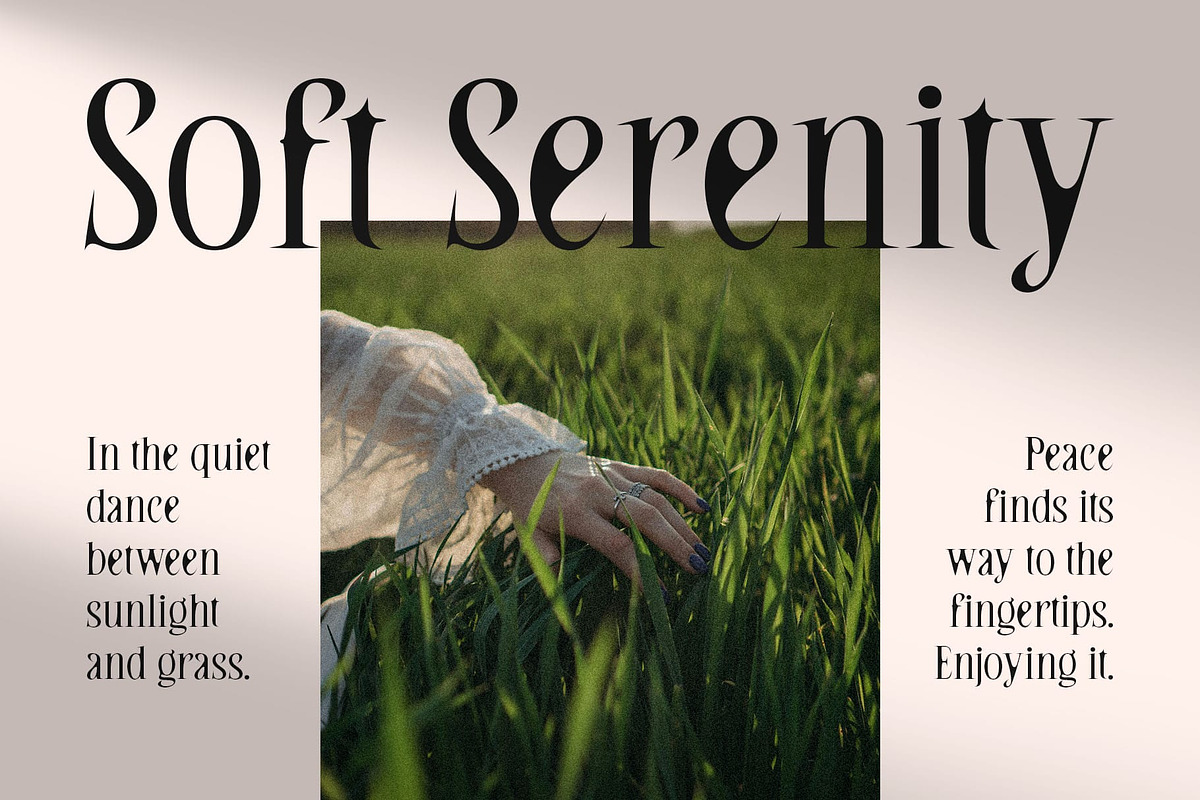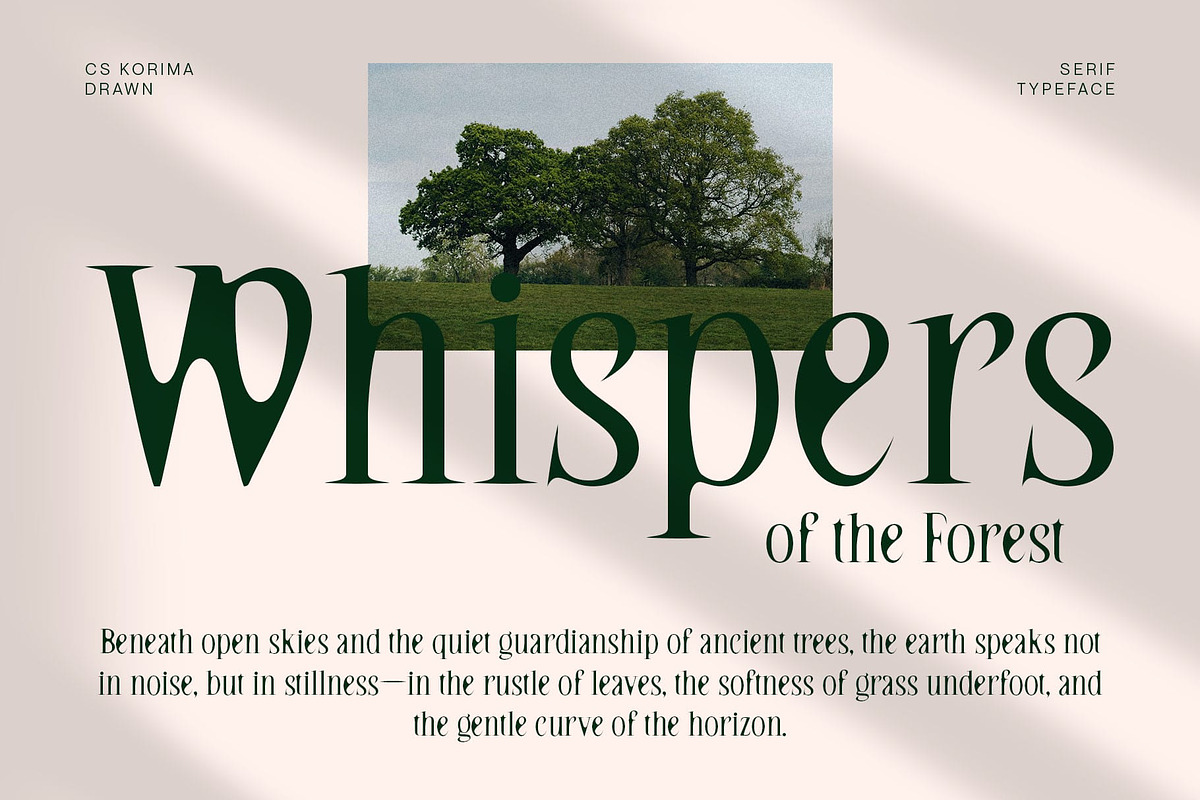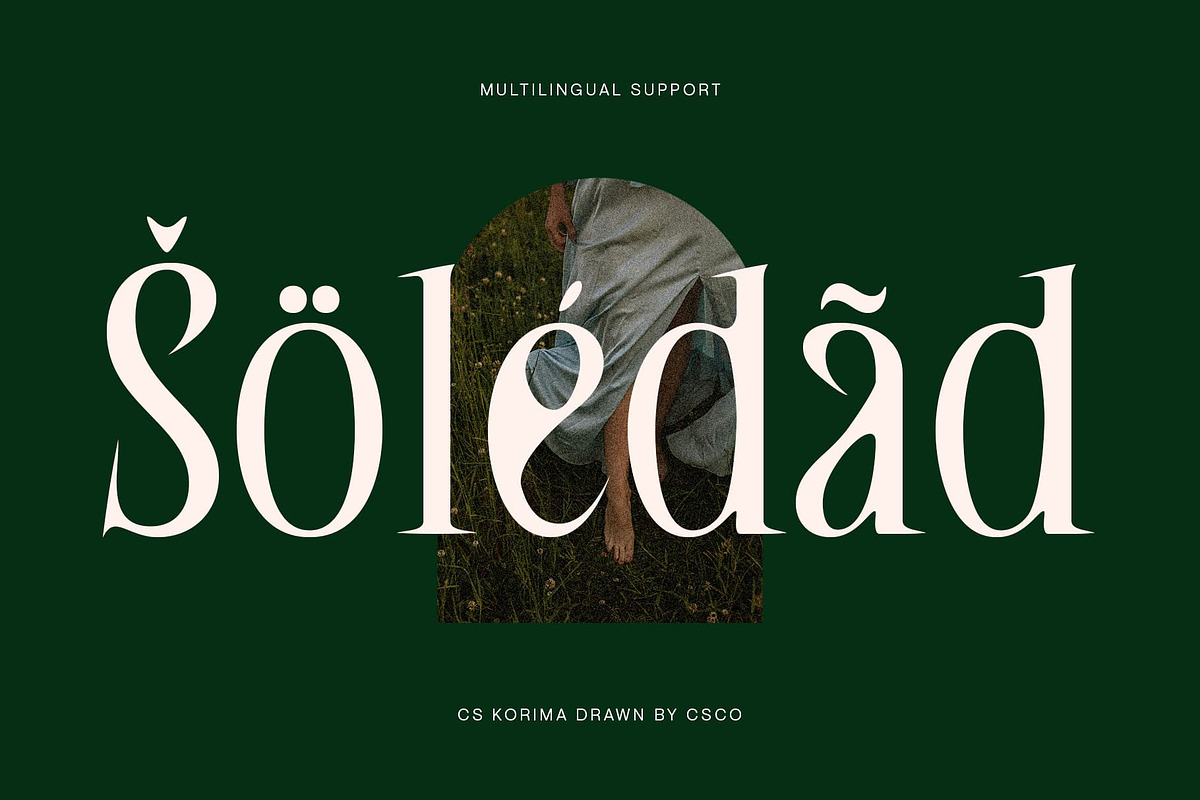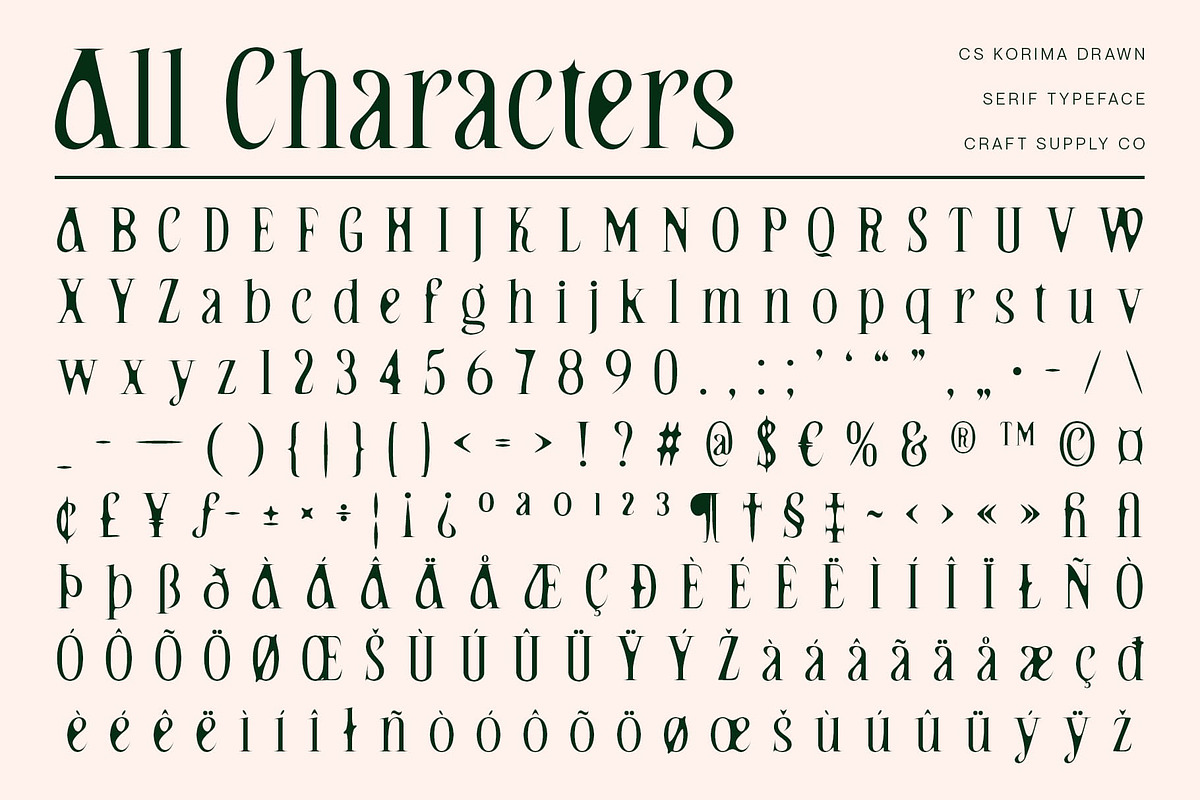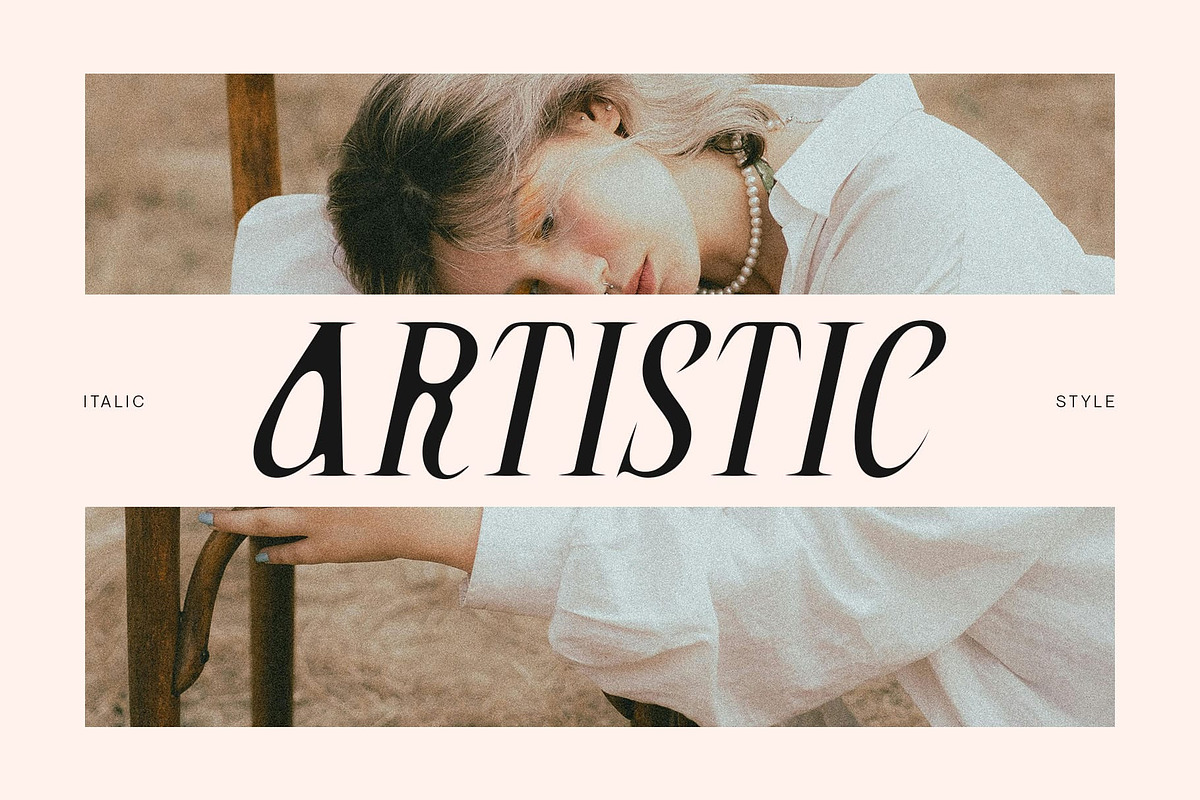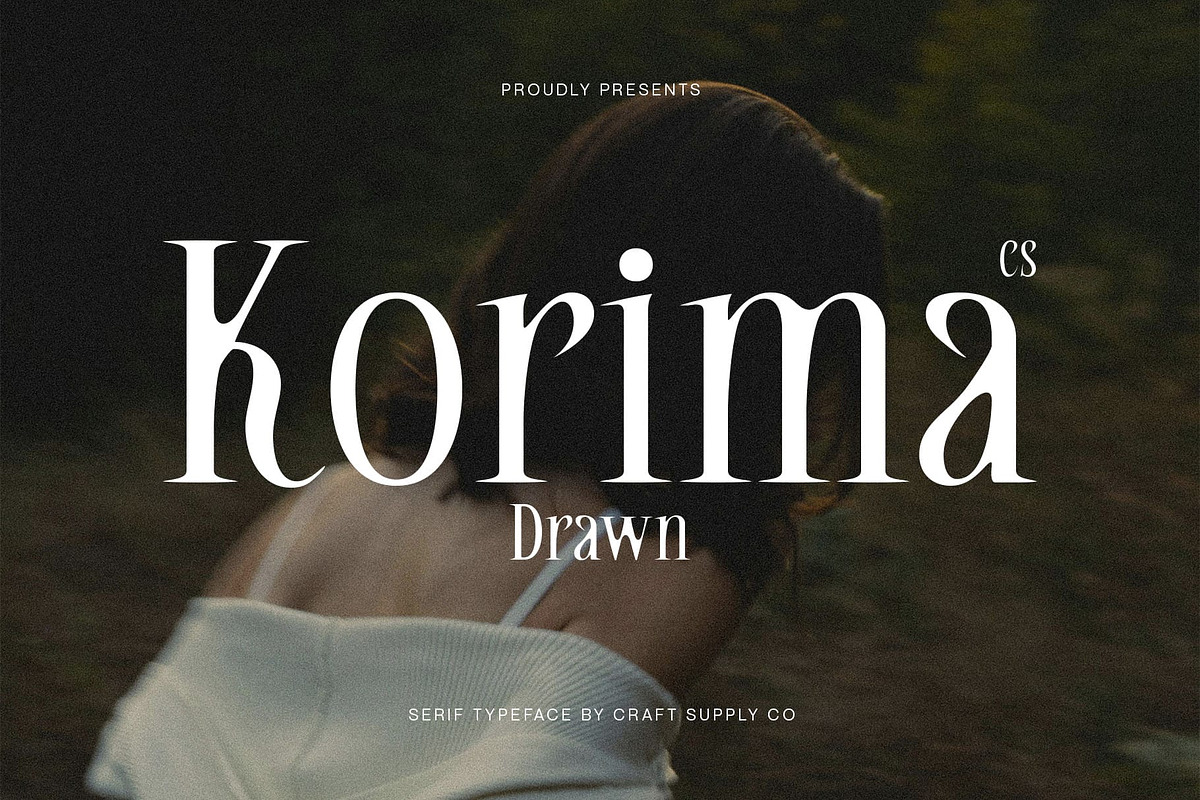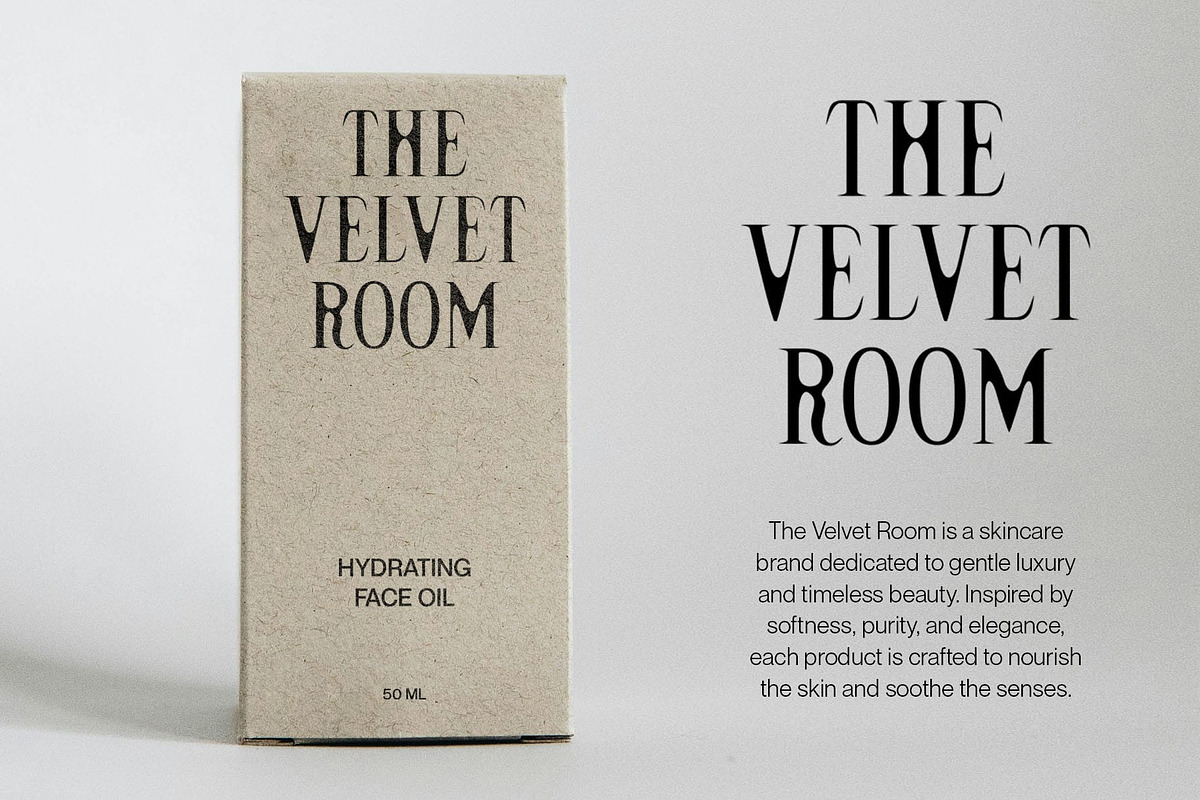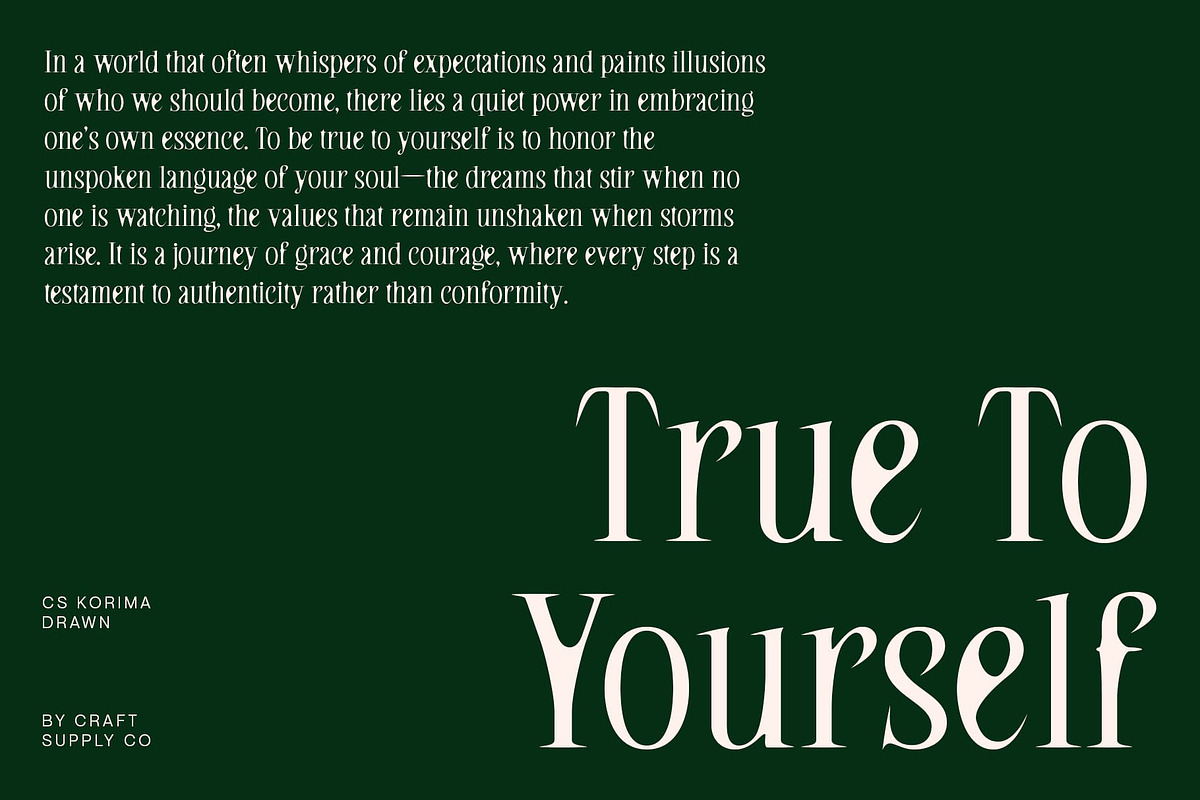
CS Korima Drawn
CS Korima Drawn – A Refined Serif Typeface with Handcrafted Elegance
Timeless Elegance Meets Contemporary Simplicity CS Korima Drawn is a modern serif typeface that gracefully bridges the gap between classic sophistication and minimalist design. With its slender, carefully proportioned letterforms and clean lines, it radiates a quiet confidence—ideal for designs that require both refinement and clarity.
A Human Touch in a Precise Form What sets this graceful and contemporary font apart is its subtle drawn effect, which lends the font a handcrafted texture that feels warm, natural, and slightly imperfect in the most intentional way. This effect softens the clean structure, giving the typeface an organic nuance that balances its modern elegance with a personal, artistic touch.
Perfect for Sophisticated Visual Narratives Whether used for high-end branding, editorial layouts, wedding invitations, packaging, or fashion campaigns, this refined font adapts seamlessly across media while maintaining its poised, graceful aesthetic. Its timeless quality and understated charm make it a go-to choice for designers aiming to evoke luxury, authenticity, and emotional resonance.
Elevate Every Design with Quiet Strength This sophisticated font doesn’t scream for attention—it commands it through subtlety, artistry, and balance. It’s a typeface for those who value elegance with depth, offering both visual clarity and expressive warmth, making every word feel carefully crafted and beautifully composed.